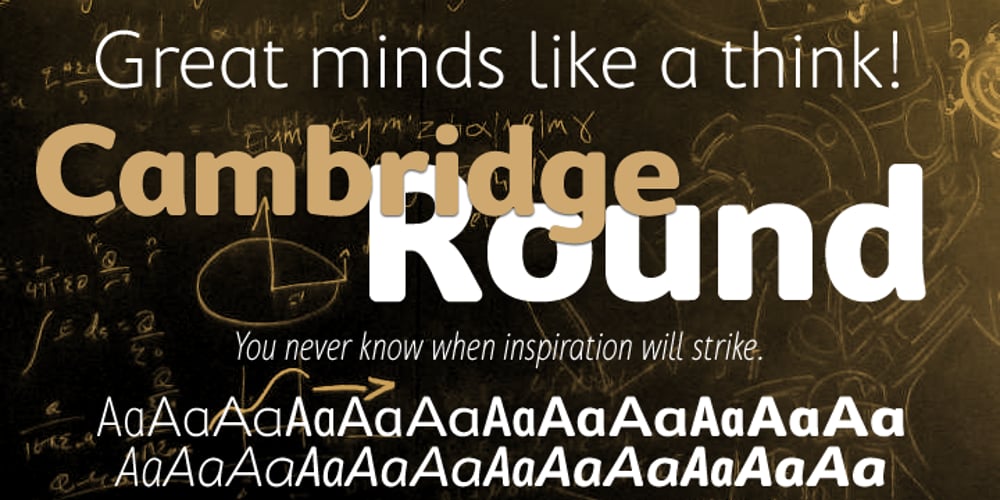
Cambridge Round
Cambridge Round font
Cambridge Round Font Family was designed by Nicholas Garner and published by AVP. Cambridge Round contains 24 styles and family package options. Cambridge Round provides a rounded version of Cambridge, useful for headings and more informal texts. The family contains four weights in three widths with matching italic forms for all variants.